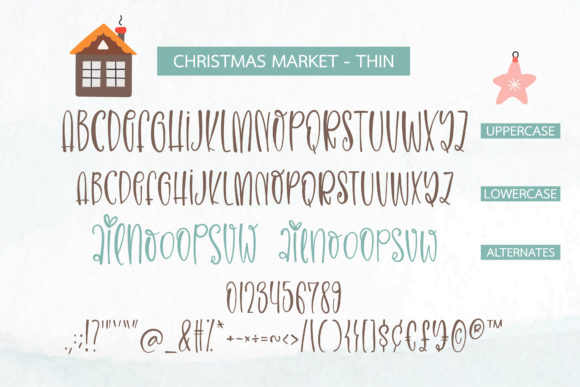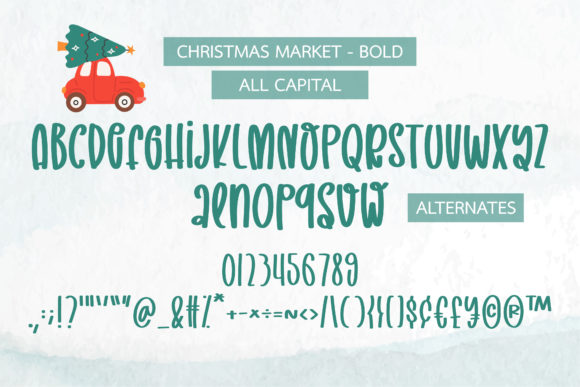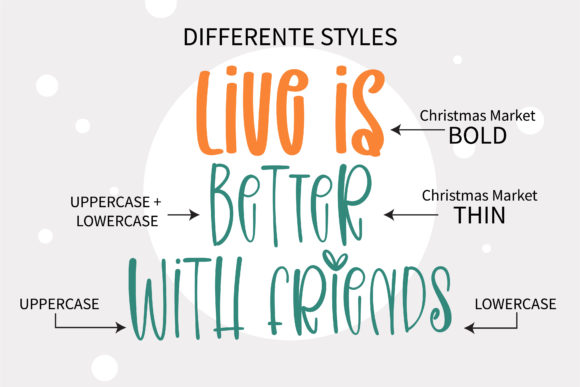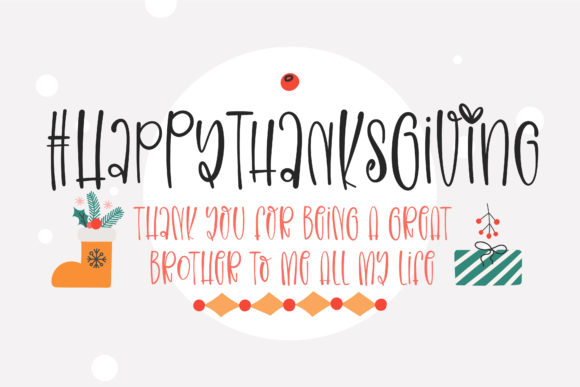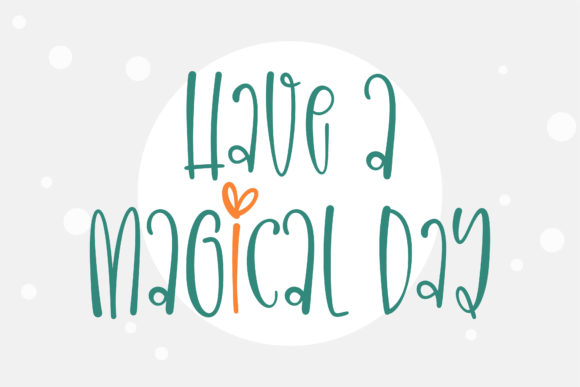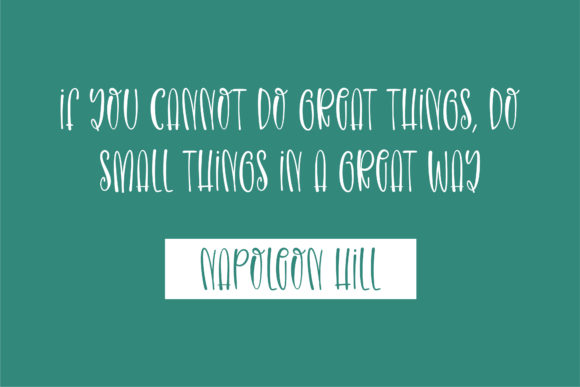
Christmas Market Font: The Perfect Addition to Your Holiday Designs
As the holiday season approaches, designers and crafters are on the lookout for the perfect fonts to add a touch of festive charm to their projects. If you’re searching for a font that’s both cute and relaxed, look no further than the Christmas Market Font. This handwritten font duo is perfect for creating unique and eye-catching designs that are sure to delight.
What is Christmas Market Font?
Christmas Market Font is a carefully crafted handwritten font duo that’s designed to bring a touch of natural elegance to your designs. With its unique and relaxed style, this font is perfect for a wide range of projects, from holiday cards and invitations to packaging and branding. The font’s natural and effortless look makes it an excellent choice for designers who want to add a personal touch to their work.
Key Features of Christmas Market Font
- Cute and Relaxed Style: Christmas Market Font boasts a charming and laid-back style that’s perfect for holiday designs.
- Handwritten Font Duo: This font comes with two unique styles that can be used together or separately to create stunning designs.
- Natural and Unique: The font’s natural and effortless look makes it stand out from other fonts, ensuring your designs will be noticed.
- Versatile: Christmas Market Font is suitable for a wide range of design ideas, from holiday cards to packaging and branding.
Why Choose Christmas Market Font?
There are many reasons why designers and crafters love Christmas Market Font. Here are just a few:
- Easily Readable: The font is designed to be easily readable, making it perfect for body text and headlines.
- Highly Versatile: Christmas Market Font can be used for a wide range of projects, from digital designs to print materials.
- Unique Style: The font’s unique style ensures that your designs will stand out from the crowd.
Design Ideas Using Christmas Market Font
Christmas Market Font is perfect for a wide range of design ideas, including:
- Holiday Cards and Invitations: Create beautiful and unique holiday cards and invitations that will impress your friends and family.
- Packaging and Branding: Add a touch of festive charm to your packaging and branding with this delightful font.
- Social Media Graphics: Create eye-catching social media graphics that will help your business stand out during the holiday season.
- Digital and Print Materials: Use Christmas Market Font for digital and print materials, such as flyers, brochures, and posters.
Tips for Using Christmas Market Font
Here are a few tips for using Christmas Market Font:
- Pair with Other Fonts: Experiment with pairing Christmas Market Font with other fonts to create stunning combinations.
- Use for Headlines and Body Text: Use the font for both headlines and body text to create a cohesive look.
Christmas Market Font is a delightful handwritten font duo that’s perfect for adding a touch of festive charm to your designs. With its cute and relaxed style, natural and unique look, and versatility, this font is sure to become a favorite in your design arsenal. Whether you’re a designer or crafter, Christmas Market Font is a great choice for any holiday project. So why wait? Add Christmas Market Font to your projects today and enjoy the results!